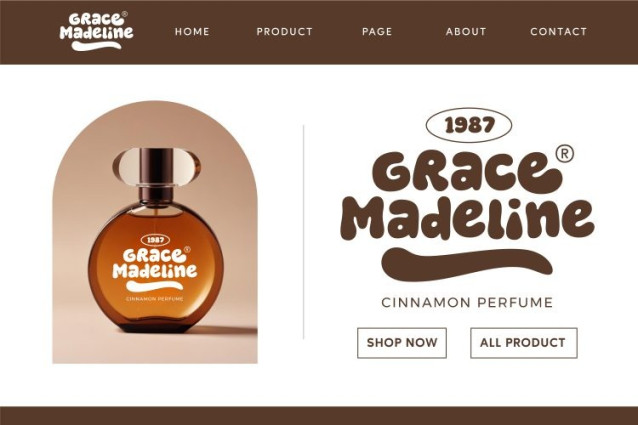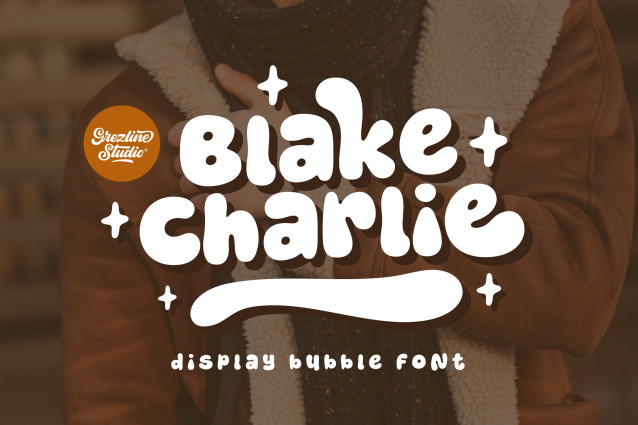
Blake Charlie Font
Blake Charlie Font, the bold, bubbly font that’s dripping with personality, made to POP off the page and bring instant joy to every letter you type!
Whether you’re crafting playful packaging, kid-friendly branding, eye-popping headlines, or that “so-cute-I-can’t-breathe” social media post — this font isn’t just fun, it’s a whole vibe. With curves that hug and bounce, and characters that radiate confidence, Blake Charlie is here to break the rules of boring type and serve up a full scoop of happy in every word.